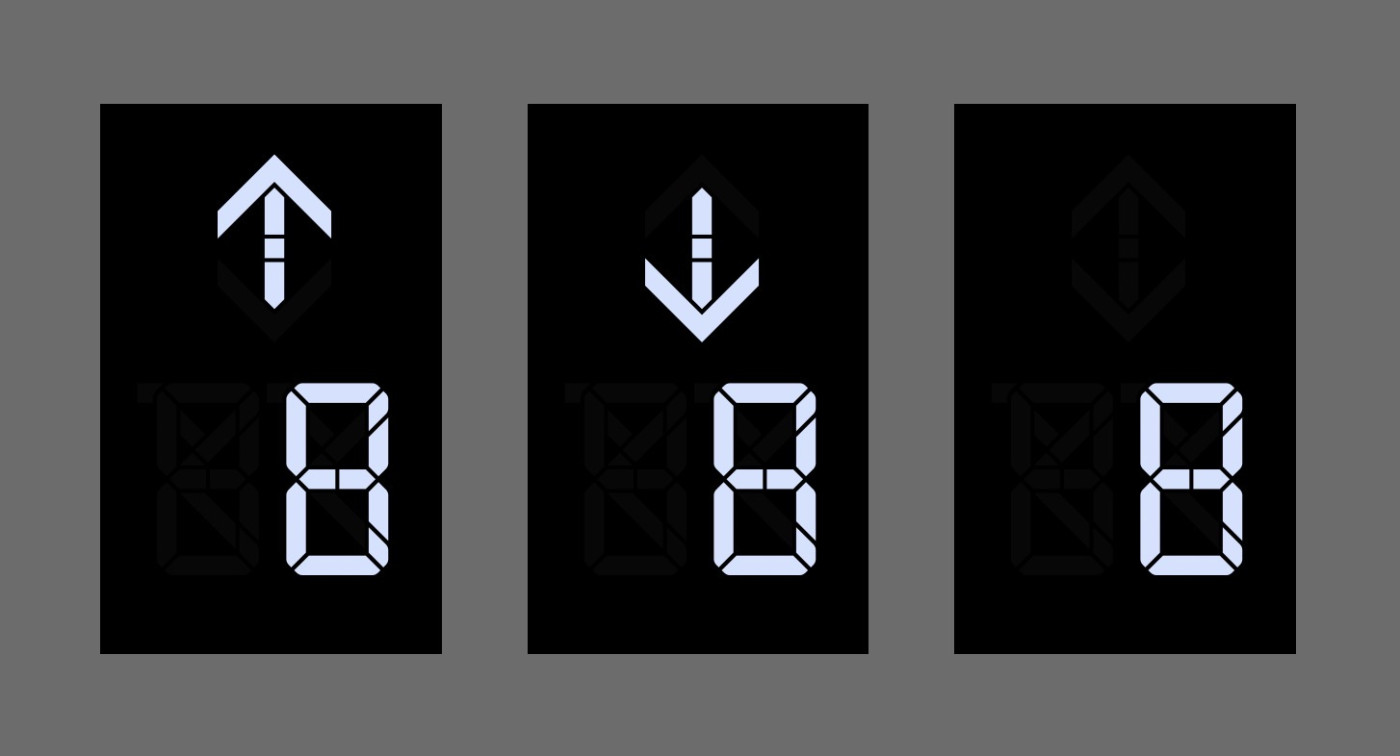
A segment display font that can look good for an elevator indicator.
Could be used on: Elevator car indicator, elevator landing indicator, and destination dispatch display